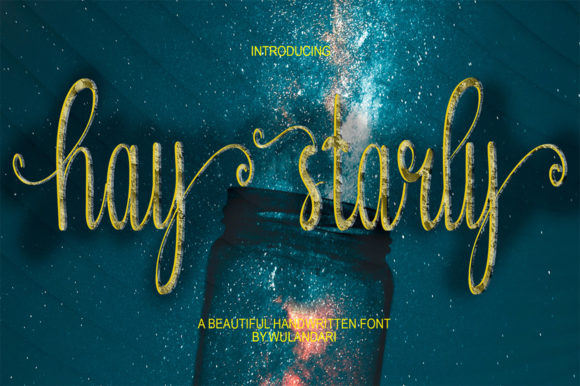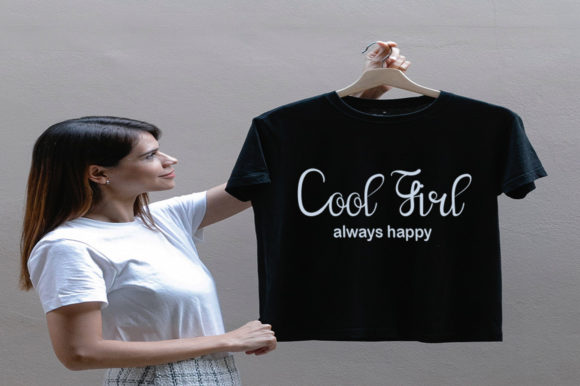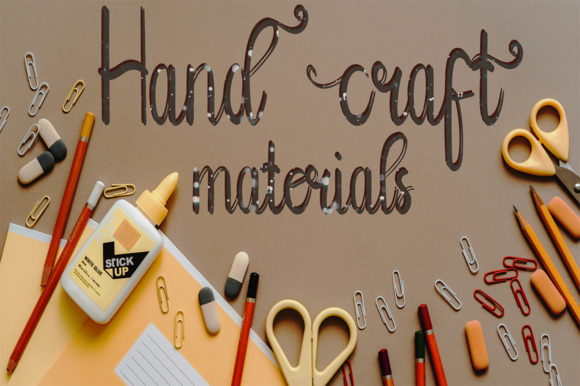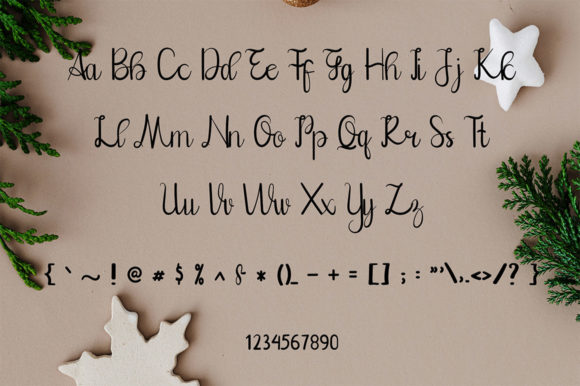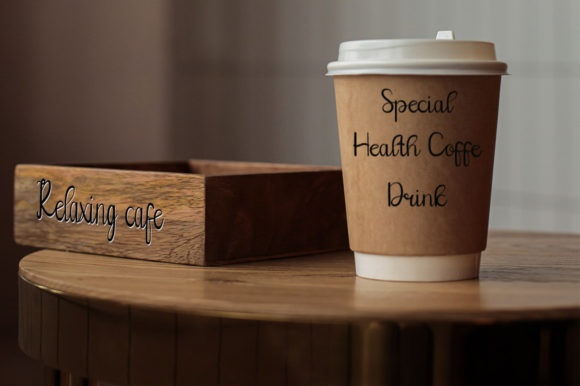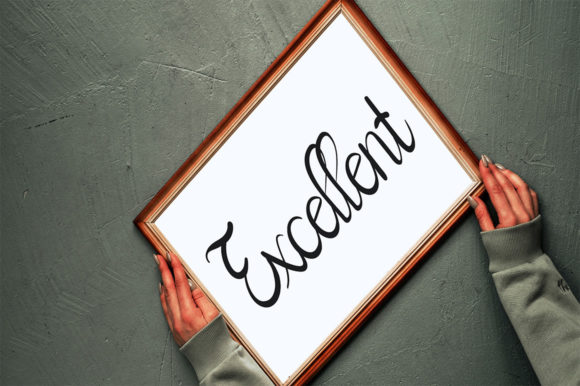
Introducing Haystarly Font: A Delicate and Elegant Handwritten Font
Are you a designer or crafter looking for a font that exudes elegance and sophistication? Look no further than Haystarly Font, a beautiful and delicate handwritten font that is sure to elevate your designs to the next level. In this article, we’ll take a closer look at the features and benefits of Haystarly Font, and explore how it can be used to create stunning designs.
A Delicate and Elegant Handwritten Font
Haystarly Font is a delicate, elegant, and flowing handwritten font that is perfect for designs that require a touch of sophistication. The font features beautiful and well-balanced characters that are carefully crafted to create a sense of harmony and balance. Whether you’re designing a logo, a wedding invitation, or a craft project, Haystarly Font is the perfect choice.
One of the standout features of Haystarly Font is that it is PUA (Private Use Area) encoded. This means that you can access all glyphs and swashes with ease, giving you complete creative control over your designs. With PUA encoding, you can easily access alternative characters, ligatures, and swashes, allowing you to add a personal touch to your designs.
Matching a Wide Pool of Designs
Haystarly Font is a versatile font that can be paired with a wide range of designs. Whether you’re creating a modern and minimalist design or a more traditional and ornate design, Haystarly Font is the perfect match. The font’s delicate and elegant style makes it suitable for a variety of design projects, including:
• Logos and branding
• Craft projects and DIY tutorials
• Signs and displays
• Digital graphics and social media assets
Haystarly Font offers a range of benefits for designers and crafters, including:
• Elegant and sophisticated designs: Haystarly Font adds a touch of elegance and sophistication to any design, making it perfect for designs that require a high level of professionalism.
• Easy to use: The font is PUA encoded, making it easy to access all glyphs and swashes.
• Versatile: Haystarly Font can be paired with a wide range of designs, making it a versatile addition to any designer’s toolkit.
• Time-saving: With Haystarly Font, you can create stunning designs in no time, saving you time and effort.
Tips for Using Haystarly Font
Here are some tips for using Haystarly Font in your designs:
• Pair with bold fonts: Pair Haystarly Font with bold fonts to create a striking contrast and add visual interest to your designs.
• Use for headings and titles: Use Haystarly Font for headings and titles to add a touch of elegance and sophistication.
• Experiment with swashes: Experiment with swashes and glyphs to add a personal touch to your designs.
• Use for digital and print designs: Use Haystarly Font for both digital and print designs, including social media assets, logos, and stationery.
Haystarly Font is a beautiful and delicate handwritten font that is perfect for designers and crafters looking to add a touch of elegance and sophistication to their designs. With its PUA encoding and versatile style, Haystarly Font is a versatile addition to any designer’s toolkit. Whether you’re designing a logo, a wedding invitation, or a craft project, Haystarly Font is the perfect choice.